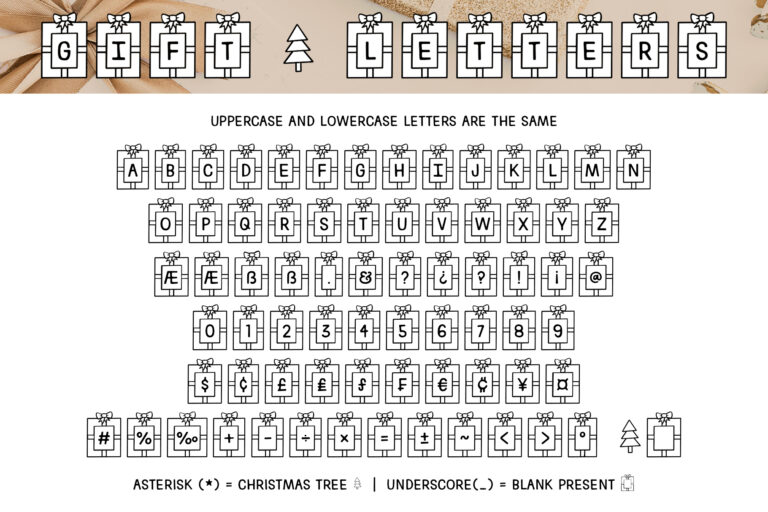
Gift Letters Font
The Gift Letters Font is a festive hand-drawn present font. Use it for Christmas or birthdays! For an empty present, use the underscore (_) character. For the Christmas Tree, use the asterisk (*) character.